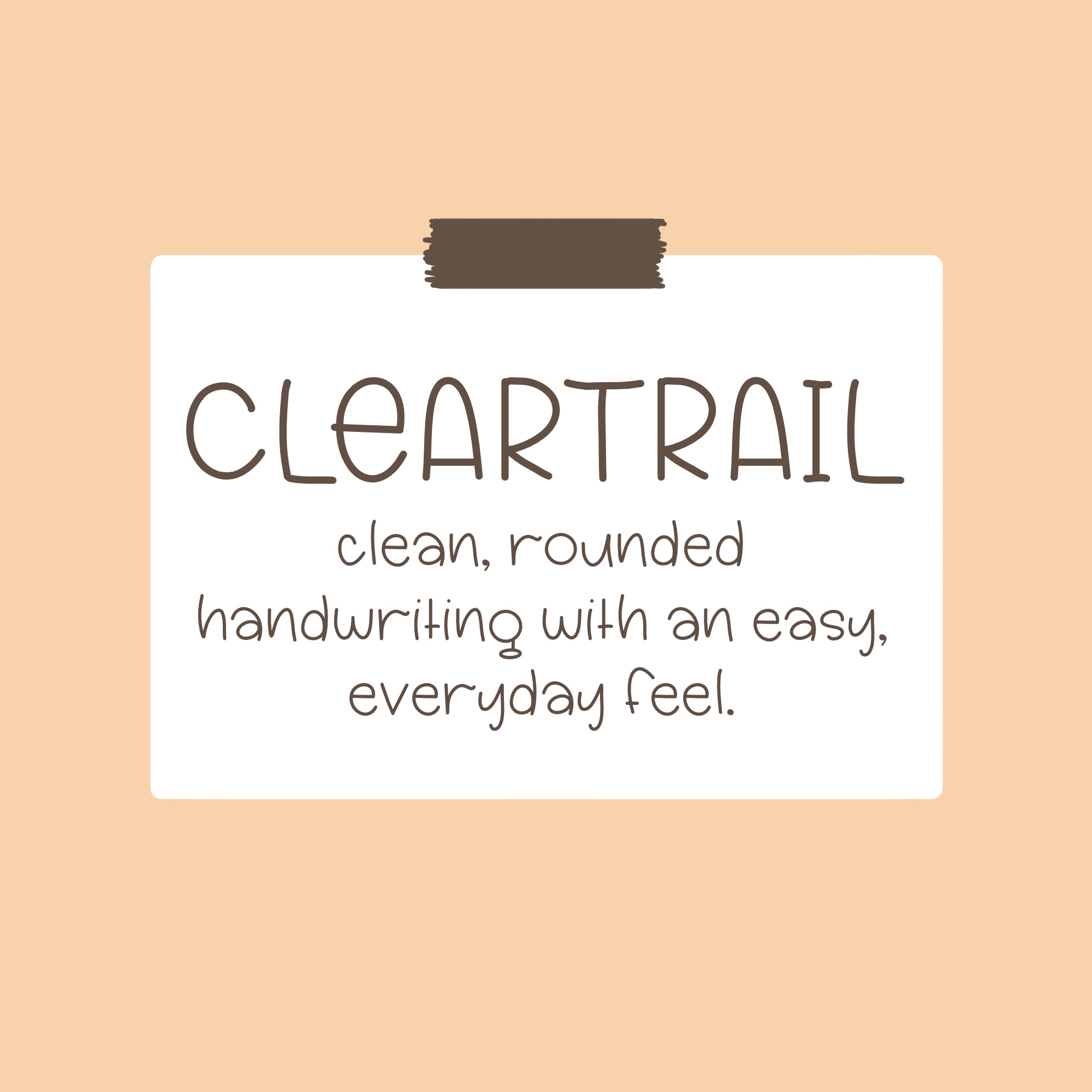
Cleartrail Print Font
Clean, rounded handwriting with an easy, everyday feel.
Cleartrail Print is a clean, rounded handwritten font with a light, easy rhythm. The letterforms are slightly narrow with soft curves and consistent monoline strokes, giving it a neat but relaxed feel. It reads clearly at small sizes while still holding personality, making it a strong choice for planners, classroom materials, labels, and everyday design work.
It includes extended characters and a full set of symbols, so it’s practical for a wide range of projects without feeling overly styled or busy.